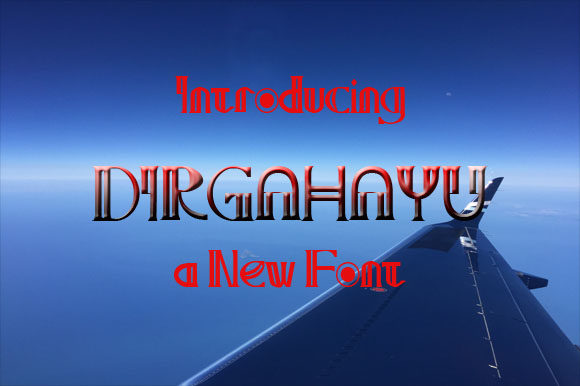
Step into the realm of captivating typography with Dirgahayu, an extraordinary display font family that will ignite your imagination. Allow its playful and conceptual essence to transform your creations into visual masterpieces.
At the heart of Dirgahayu lies a symphony of meticulously crafted characters, each imbued with a distinct charm that sets it apart from the ordinary. Whether gracing the walls of a hallowed church, adorning the pages of an inspiring novel, or adding an unforgettable touch to a heartfelt letter, Dirgahayu possesses the versatility to elevate any project to new heights.
Embrace the charm of Dirgahayu, a display font that dances across your screen with a playful spirit. Unleash your creativity and let its unique character shine through. From elegant invitations that leave a lasting impression to eye-catching social media posts that demand attention, Dirgahayu is the perfect companion for those who dare to stand out.
With Dirgahayu at your fingertips, you hold the power to transform the mundane into the extraordinary. Its playful spirit will ignite your imagination, inviting you to explore uncharted creative territories. Join countless artists, designers, and creatives who have embraced the allure of Dirgahayu, and let your vision take flight.
In a world saturated with similar fonts, Dirgahayu emerges as a breath of fresh air, captivating hearts and inspiring minds with its unwavering originality. Step into a realm where fonts come alive, and let Dirgahayu guide you on a typographic adventure like no other.